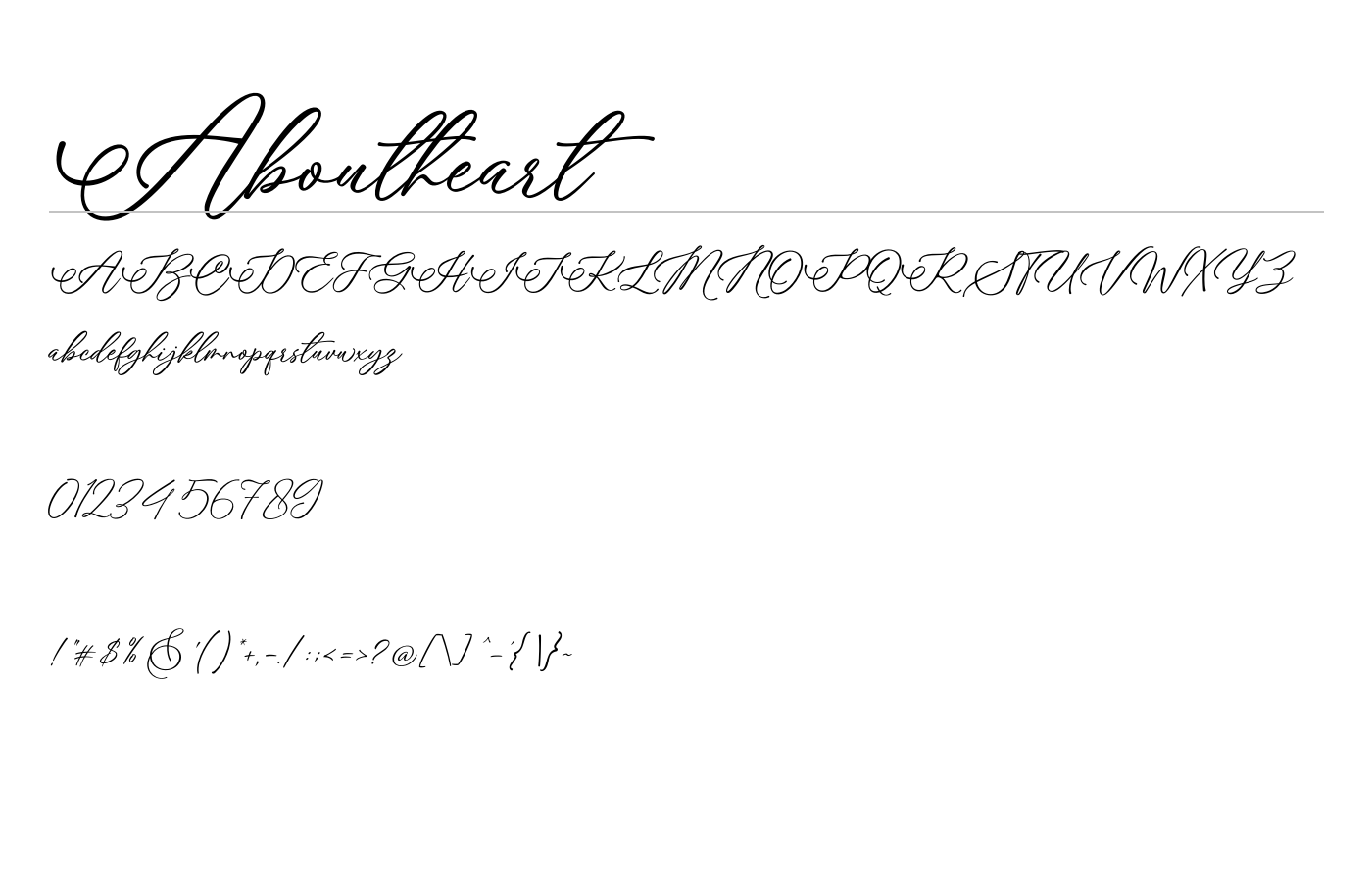
Aboutheart Font is an elegant, thin script typeface with flowing, connected strokes that create a graceful and romantic feel. Its delicate curves and refined lines make it perfect for wedding invitations, luxury branding, and feminine editorial designs where a touch of sophistication and warmth is desired. This font works beautifully in headlines and decorative text, adding personality without overwhelming the design.
Aboutheart Font
About Aboutheart Font